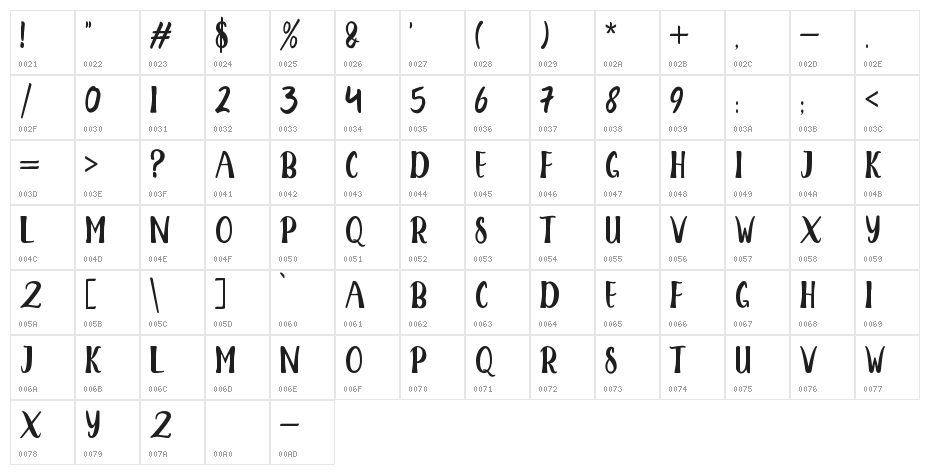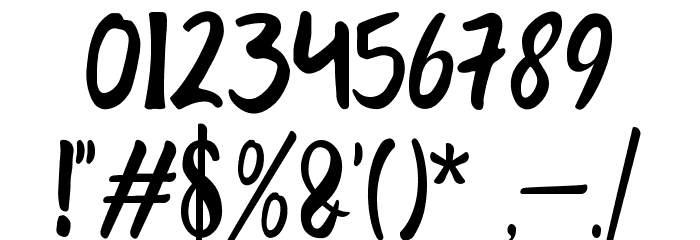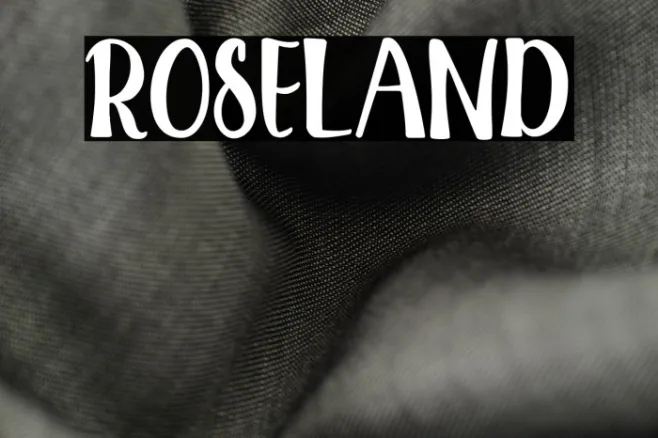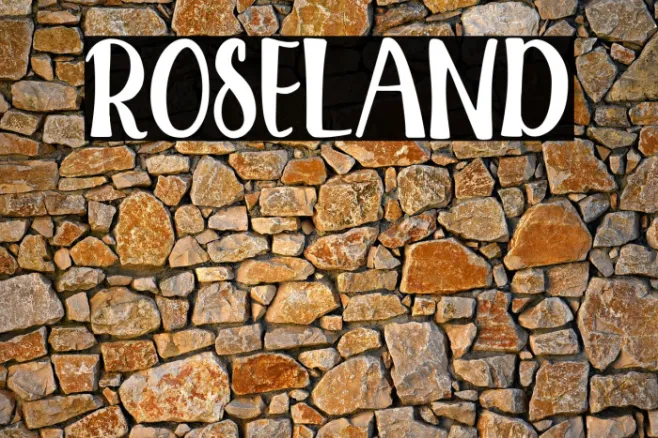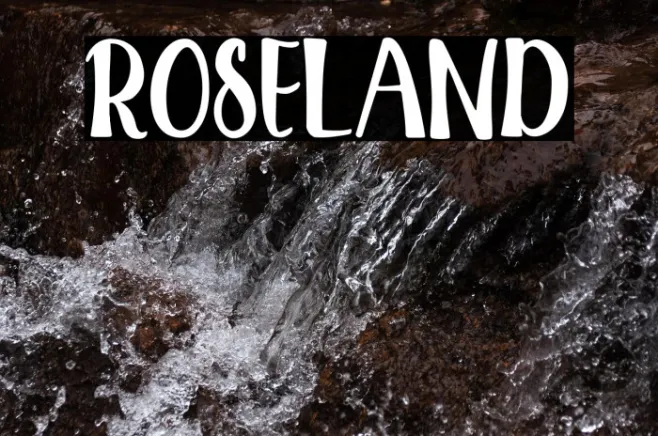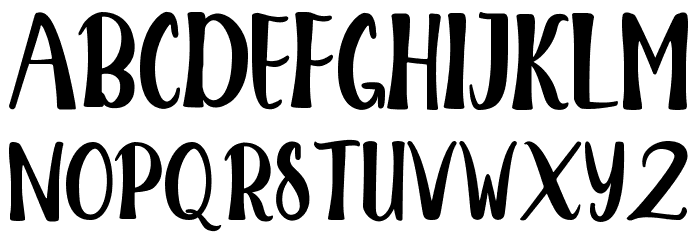
ROSELAND Font
ROSELAND Description
This font features a bold and expressive style, characterized by its hand-drawn appearance and playful curves. The uppercase letters are tall and slightly condensed, with a noticeable slant that adds a dynamic feel. The lowercase letters maintain the same lively energy, with rounded edges and varying stroke widths that give a sense of movement. The numerals are consistent with the overall style, offering a cohesive look across all characters. Special characters are creatively designed, enhancing the font's whimsical nature. This font is perfect for projects that require a fun and engaging visual impact.
| Proposed Projects | Ideal for children's books, playful branding, event posters, and creative packaging. |